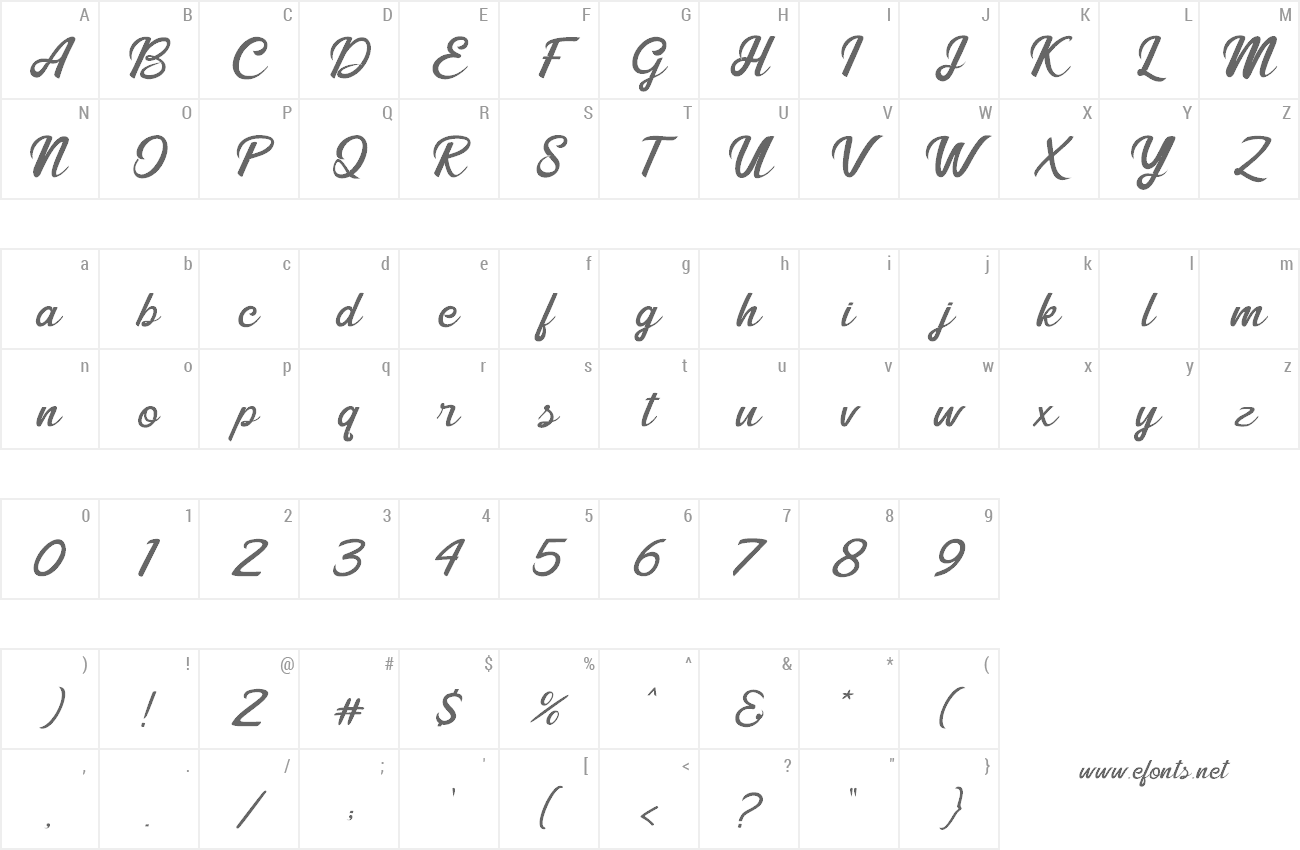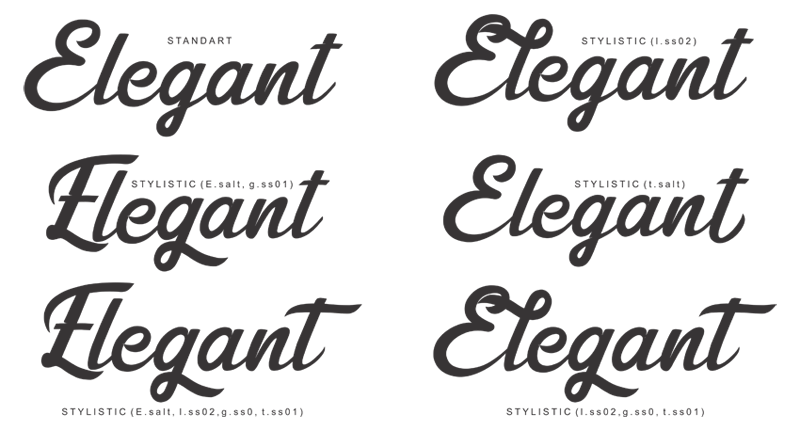
Preview and download Shining Times Font. Created by Seno Aji in Script Calligraphy styles with Free for personal use license.
Introducing: Shining Times, a Bold Script Font. Shining Times is modern handmade font, dynamic and also has beautiful opentype features. Shining Times is easily to use for your work ; Branding, Logo Design, Lettering, Clothing, Poster and others. Shining Times with .ttf format has Opentype Features (Ligature & Alternate) and Multilingual Support ( Danish,Finnish,English, Spanish,Dutch,German,Icelandic,Italian, Norwegian,Portuguese,Indonesian, Swedish) Dont forget to visit my store: https://www.creativefabrica.com/designer/senoajifont/ https://fontbundles.net/senoajifont |